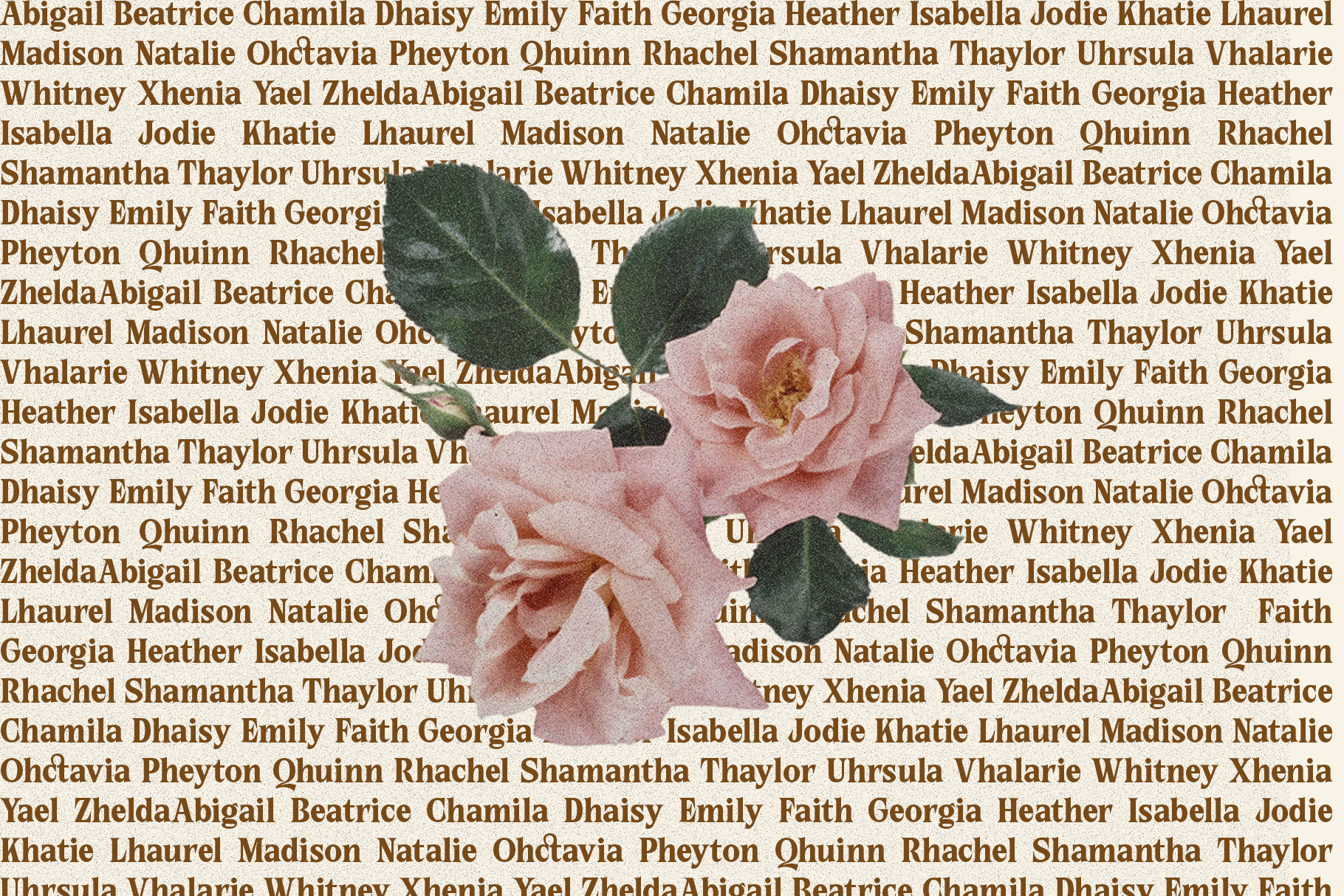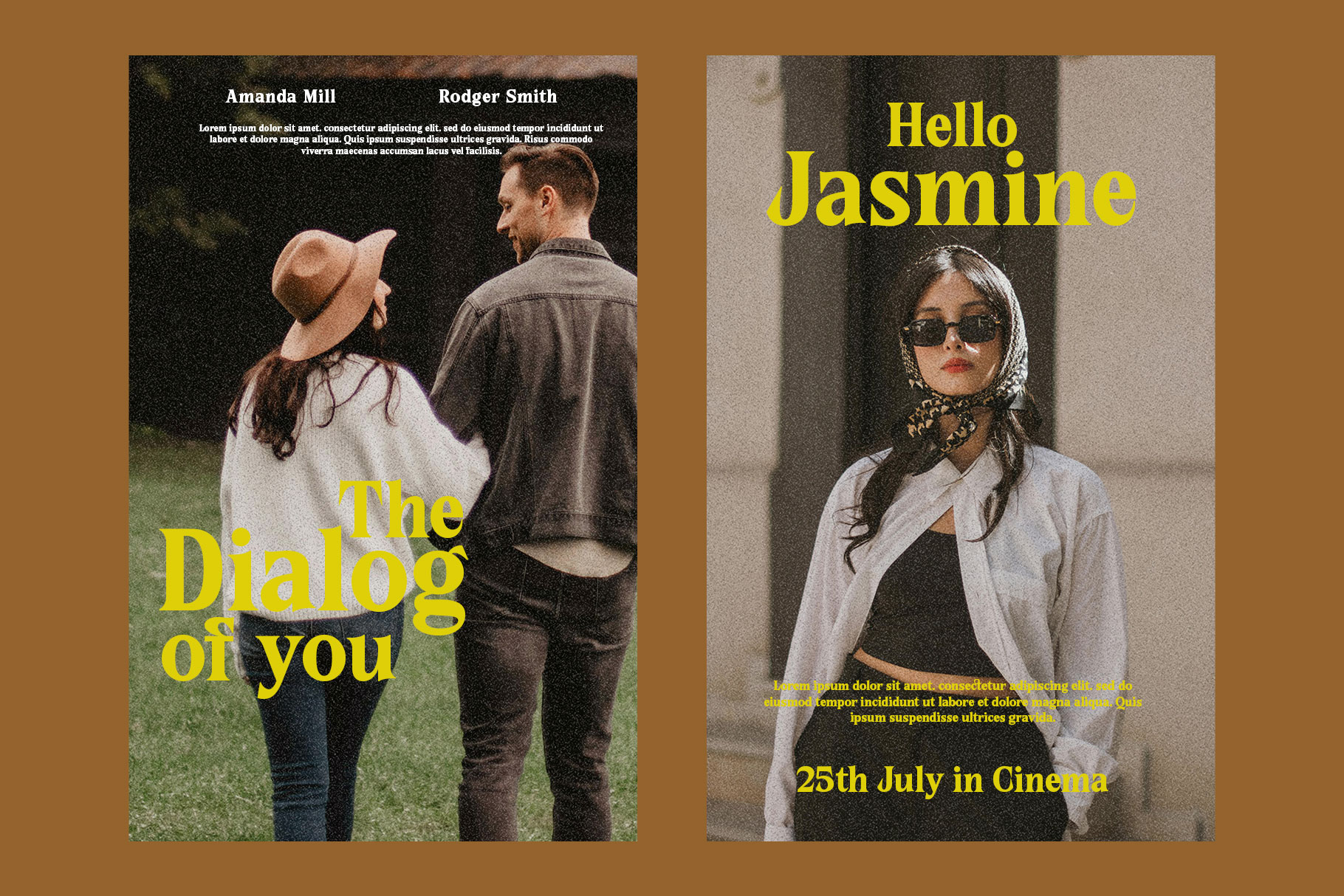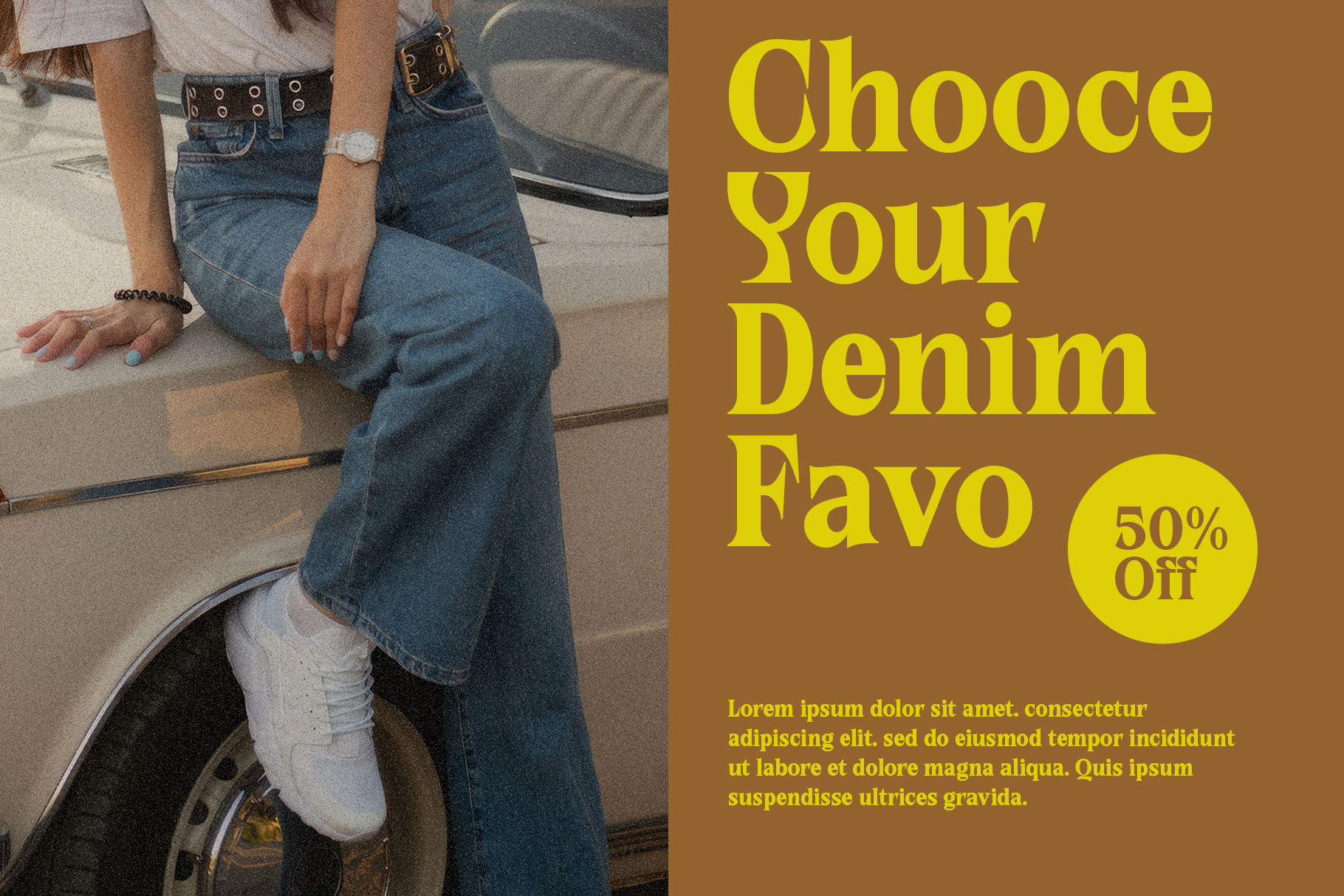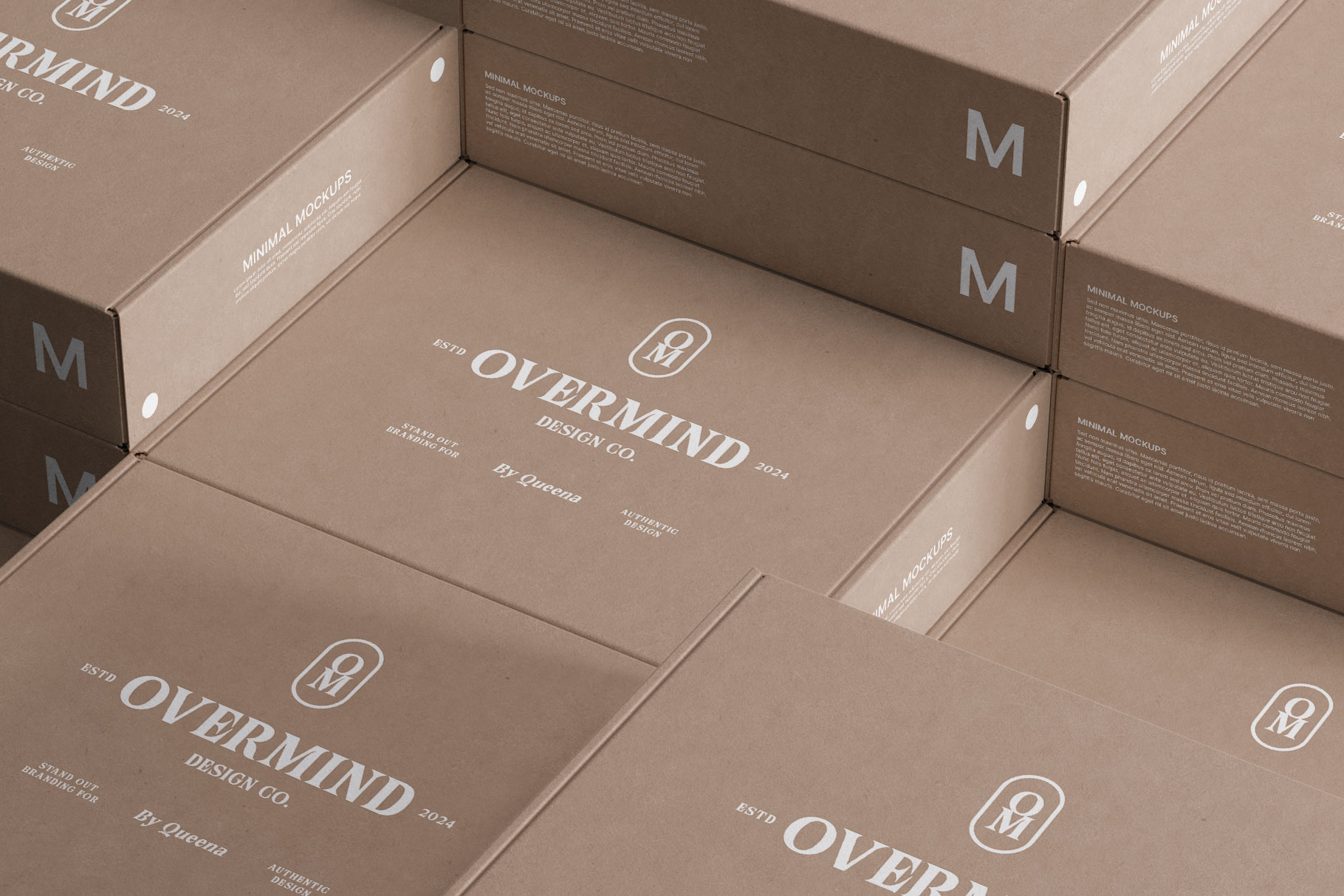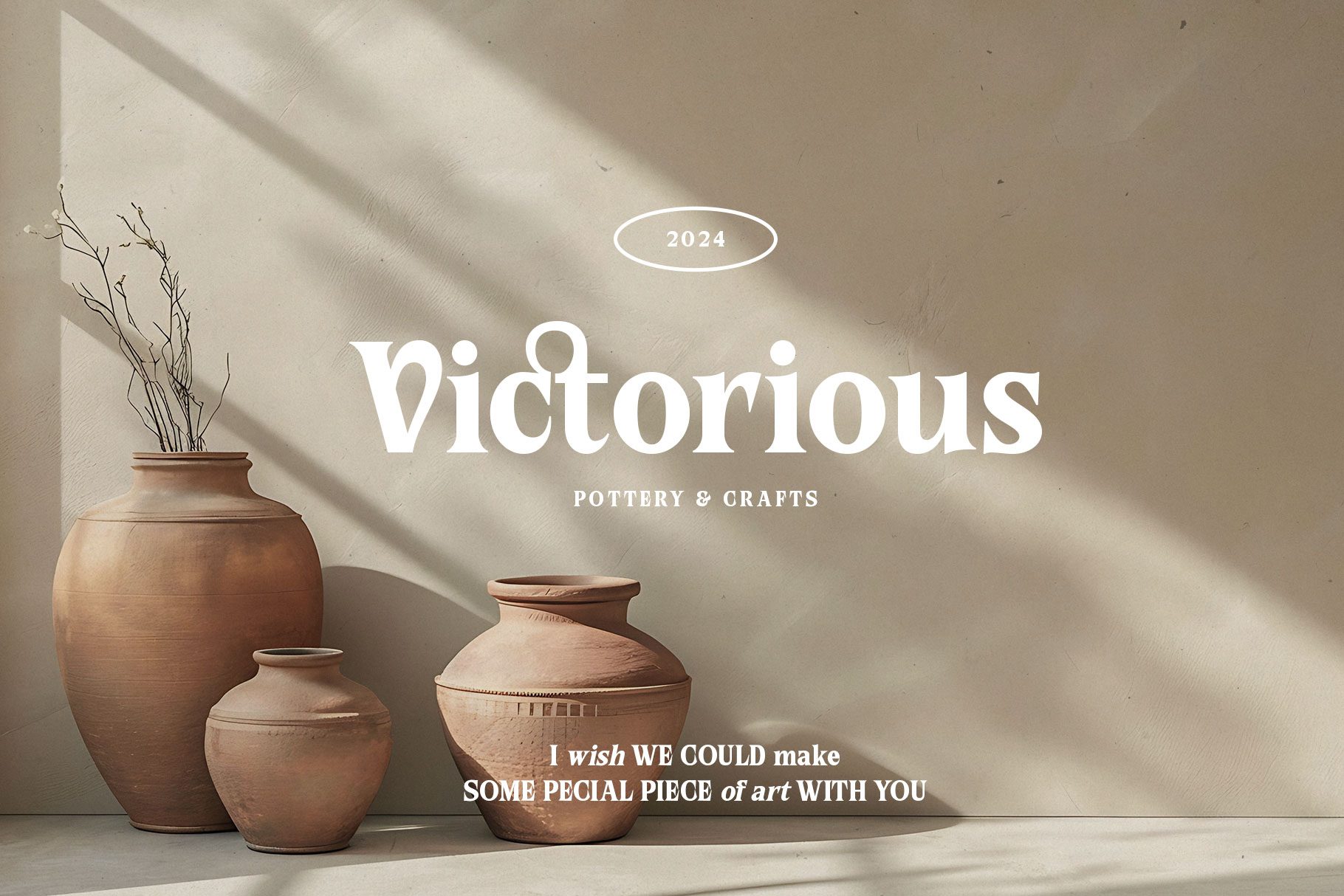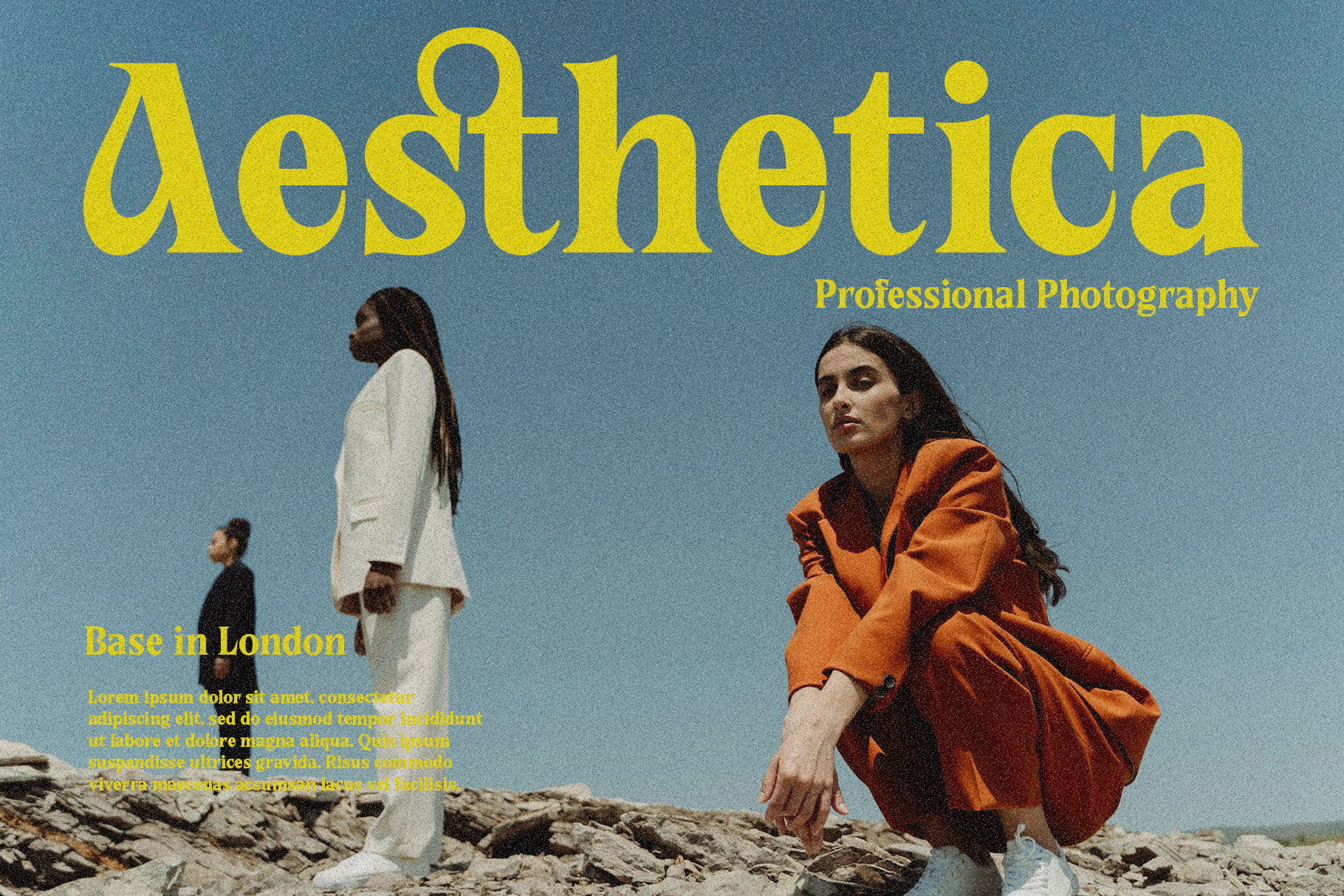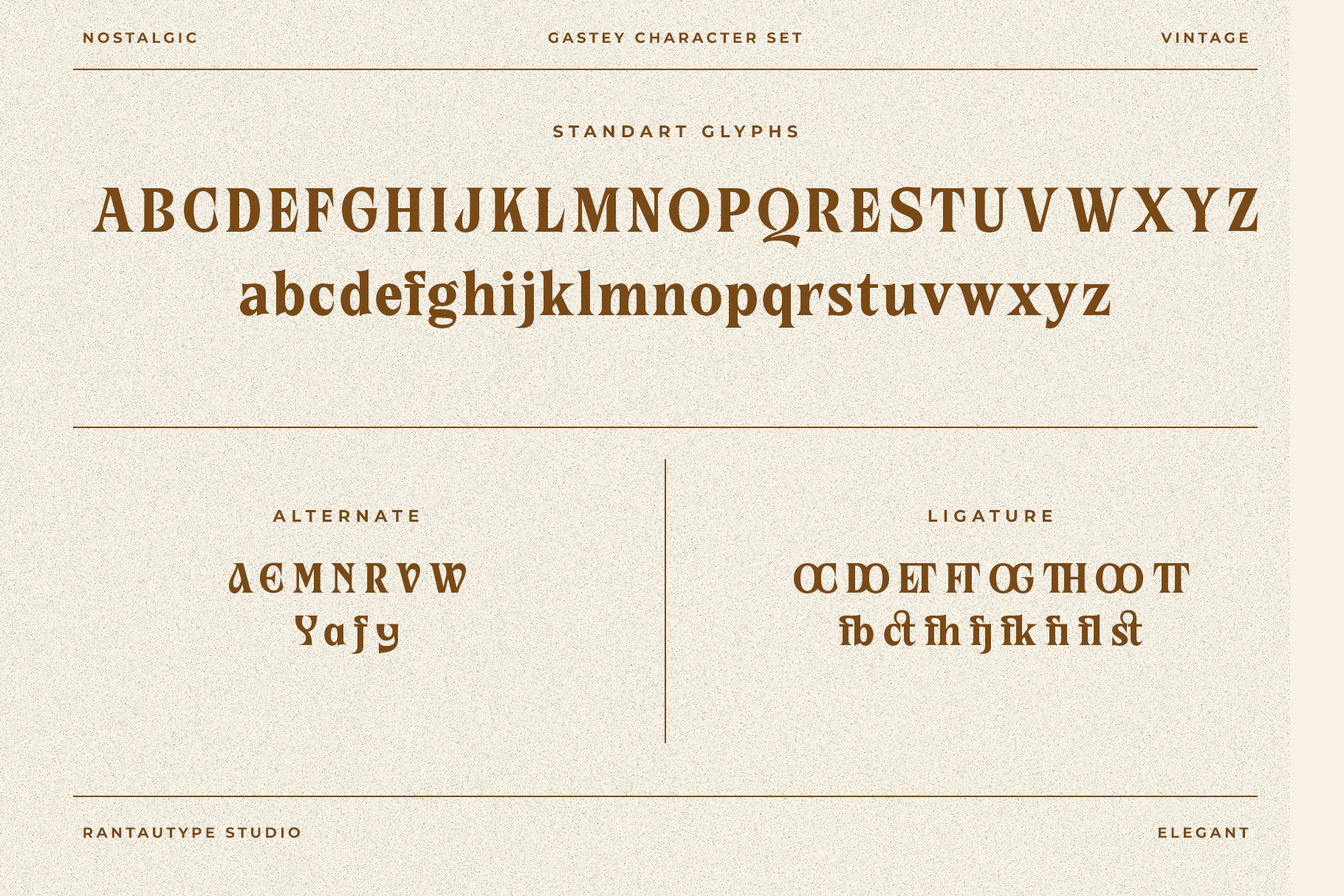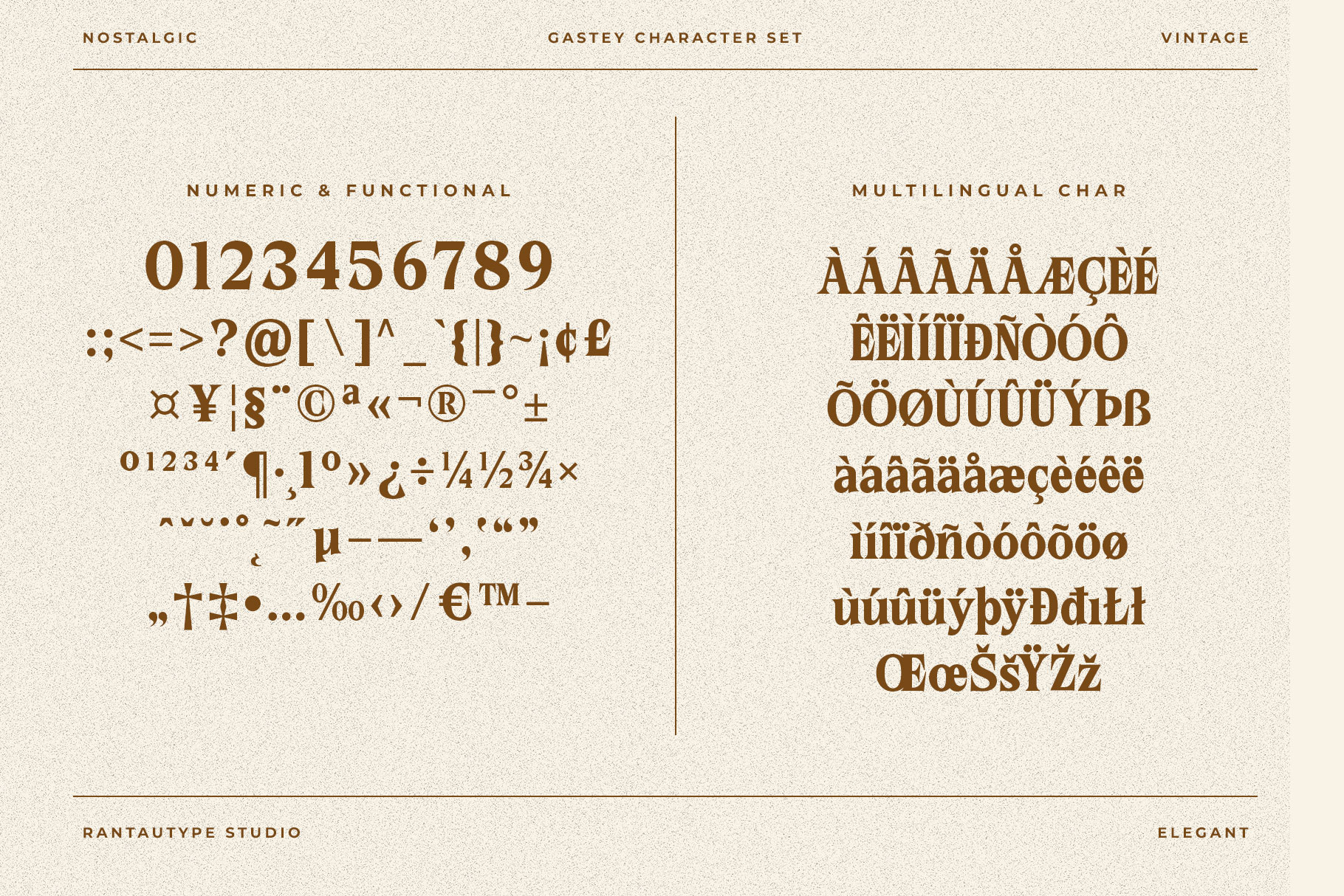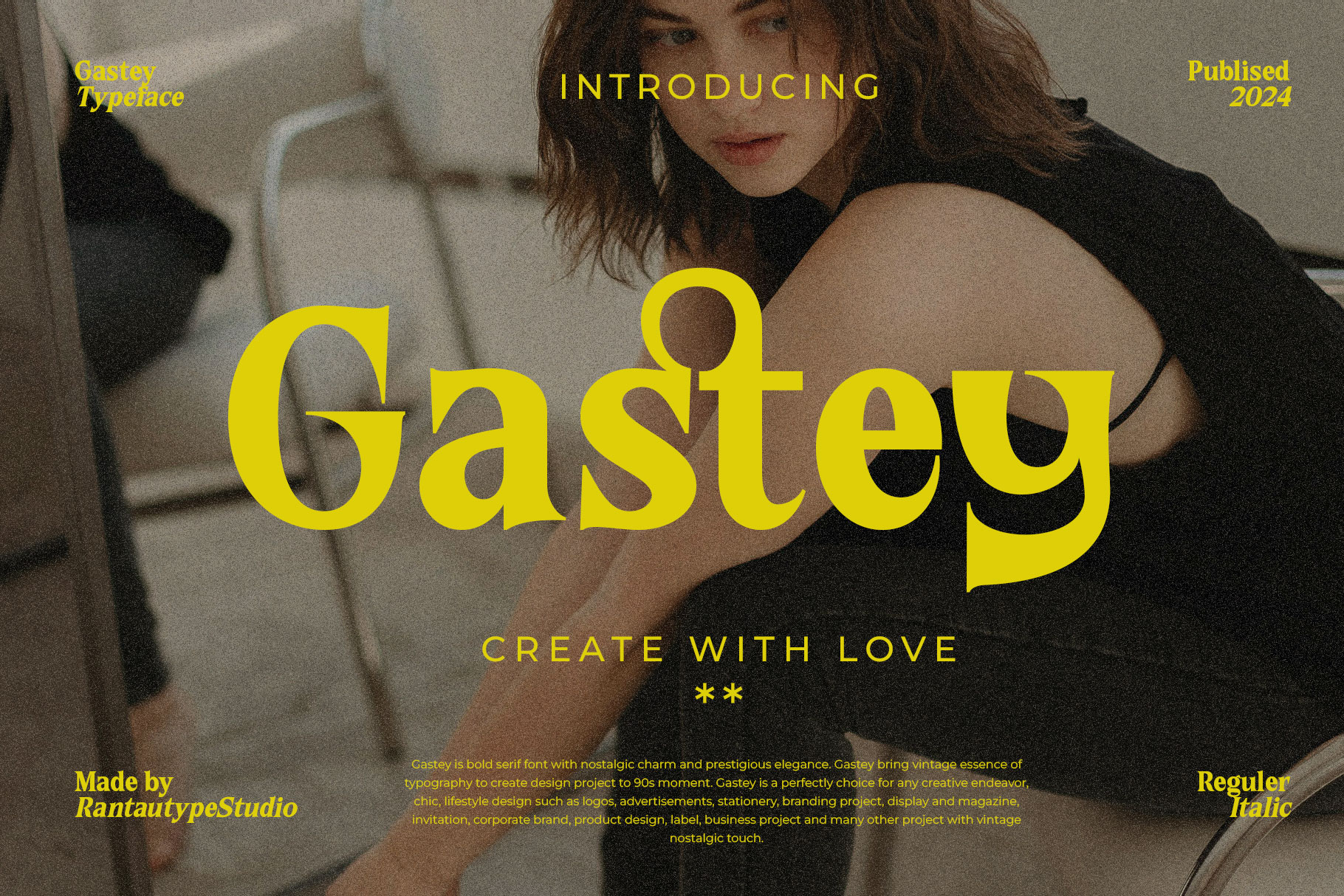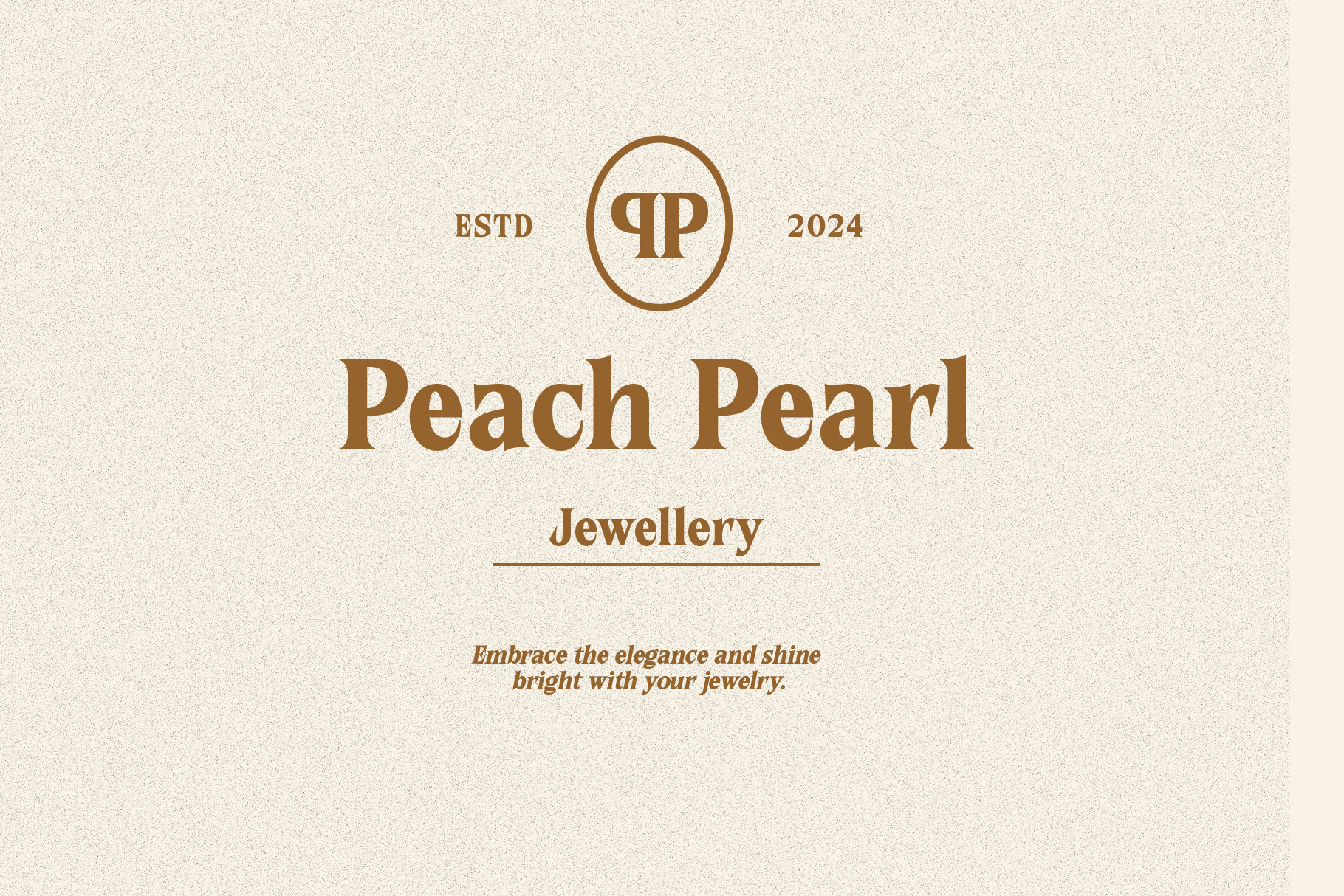
Gastey Bold Vintage Serif Font
Gastey is bold serif font with nostalgic charm and prestigious elegance. Gastey bring vintage essence of typography to create design project to 90s moment.
Gastey is a perfectly choice for any creative endeavor, chic, lifestyle design such as logos, advertisements, stationery, branding project, display and magazine, invitation, corporate brand, product design, label, business project and many other project with vintage nostalgic touch.